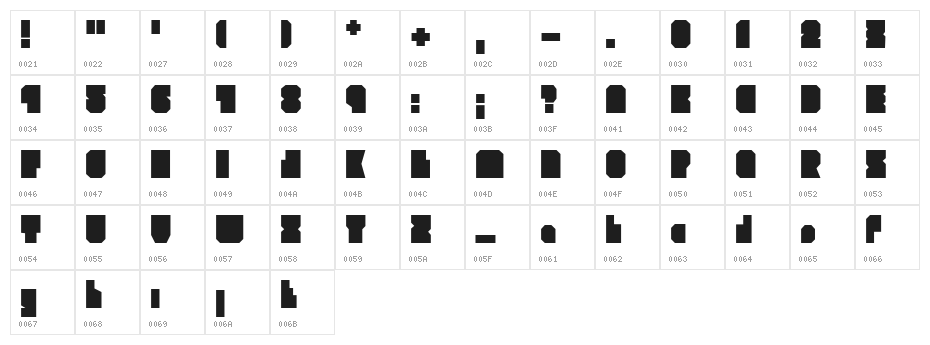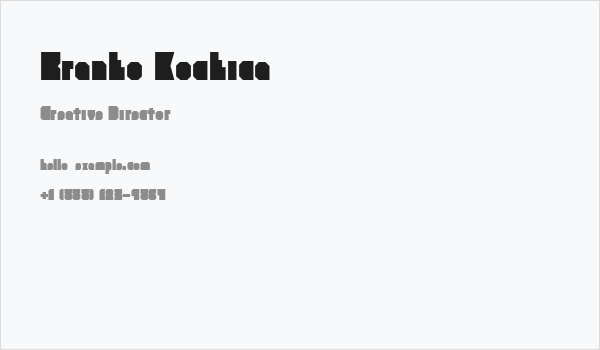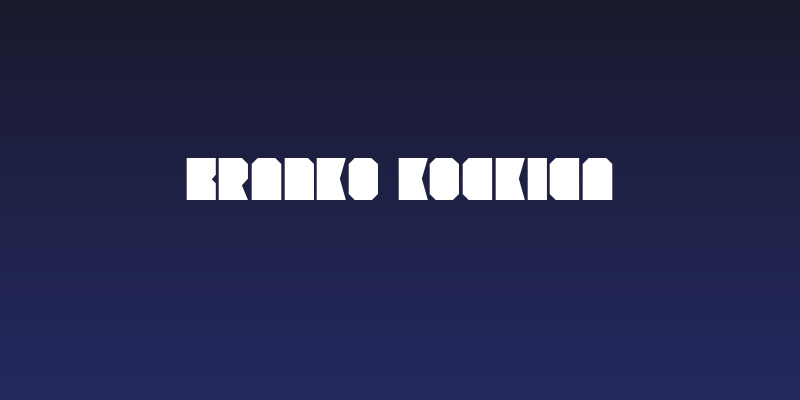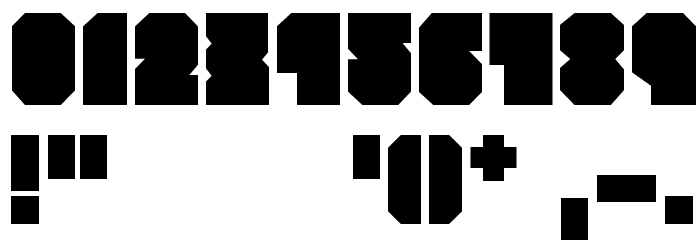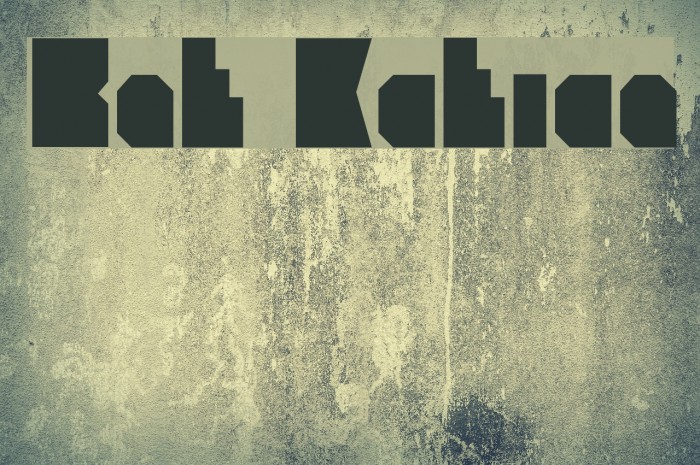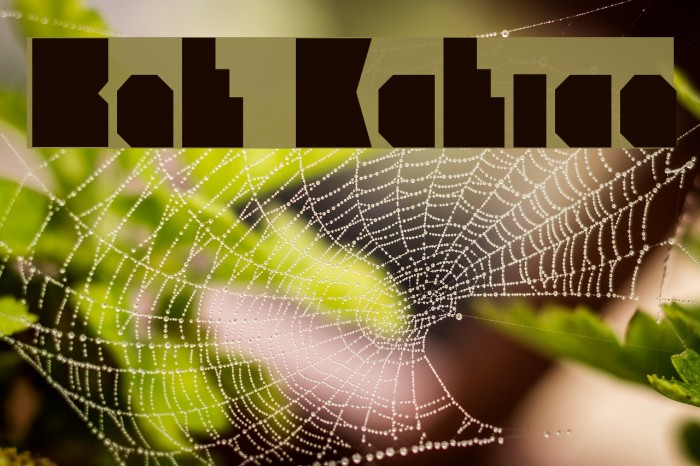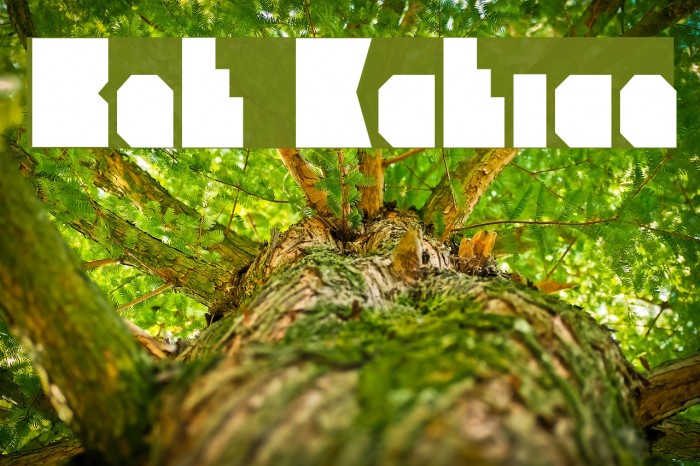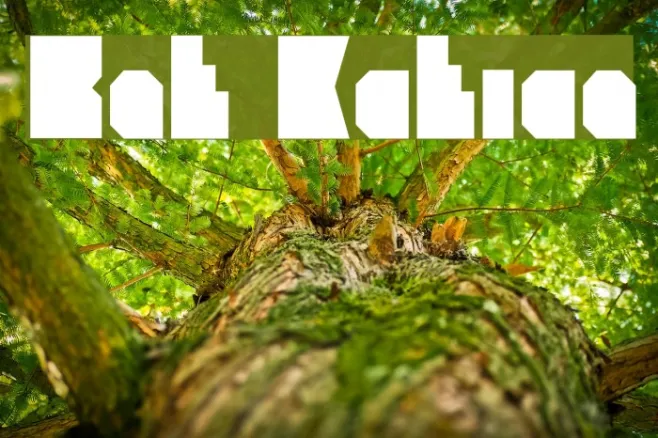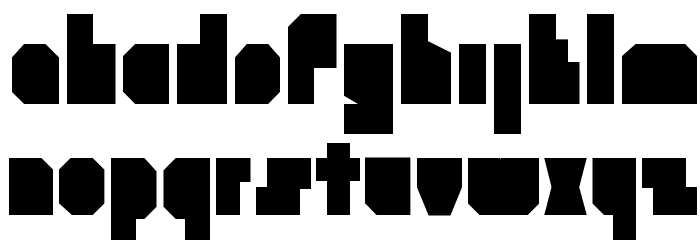
Branko Kockica Font
Branko Kockica Description
This font features a bold, geometric design with a strong emphasis on angular shapes and sharp edges. Each character is constructed with a series of straight lines and right angles, giving it a distinctly modern and industrial feel. The uppercase and lowercase letters maintain a consistent blocky appearance, while the numerals and special characters follow the same stylistic approach. The font's heavy weight and uniformity make it ideal for creating impactful visual statements. Its unique style is both eye-catching and memorable, suitable for projects that require a strong, authoritative presence.
| Proposed Projects | Ideal for posters, logos, branding, and any design requiring a strong visual impact. |